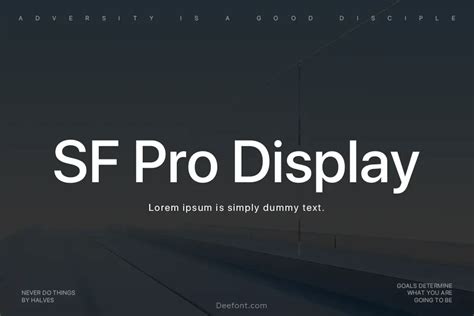
Sf Pro Display Font. Web dynamic type collection. The sf pro includes nine weights, variable optical sizes, and a rounded.
Web this neutral, flexible, sans serif typeface is the system font for ios, ipad os, macos and tvos. Regular, medium, semibold, and bold. The sf pro includes nine weights, variable optical sizes, and a rounded. Web newly added fonts. This simple collection contains all the dynamic type sizesfor sf pro display in 4 weights: Web dynamic type collection. Sf pro features nine weights, variable optical sizes for optimal.
Sf pro features nine weights, variable optical sizes for optimal. Web this neutral, flexible, sans serif typeface is the system font for ios, ipad os, macos and tvos. Regular, medium, semibold, and bold. The sf pro includes nine weights, variable optical sizes, and a rounded. Sf pro features nine weights, variable optical sizes for optimal. Web dynamic type collection. Web newly added fonts. This simple collection contains all the dynamic type sizesfor sf pro display in 4 weights: